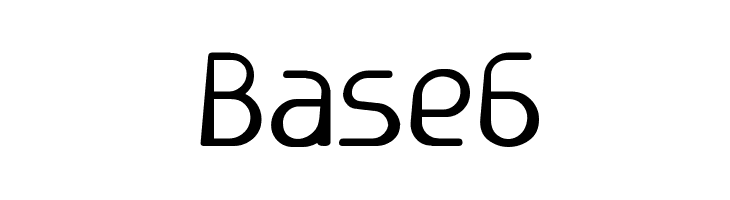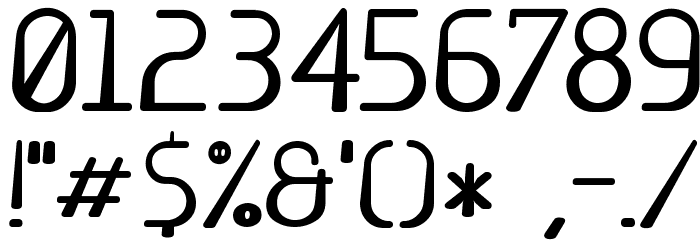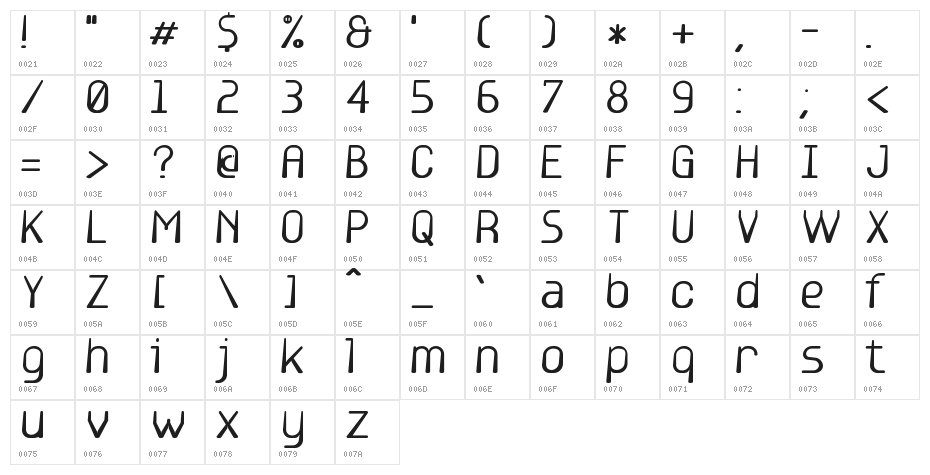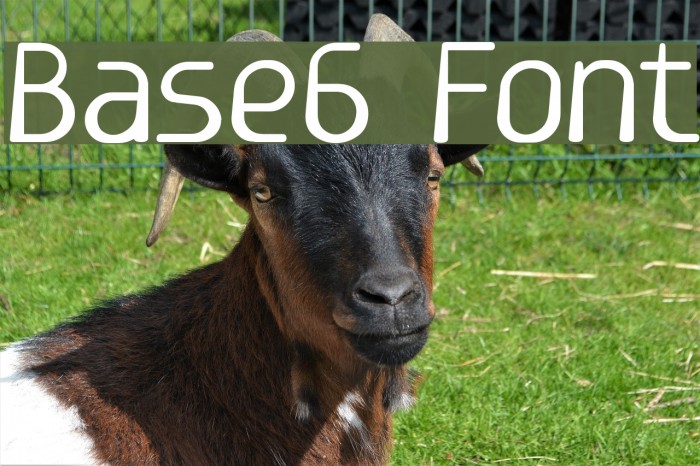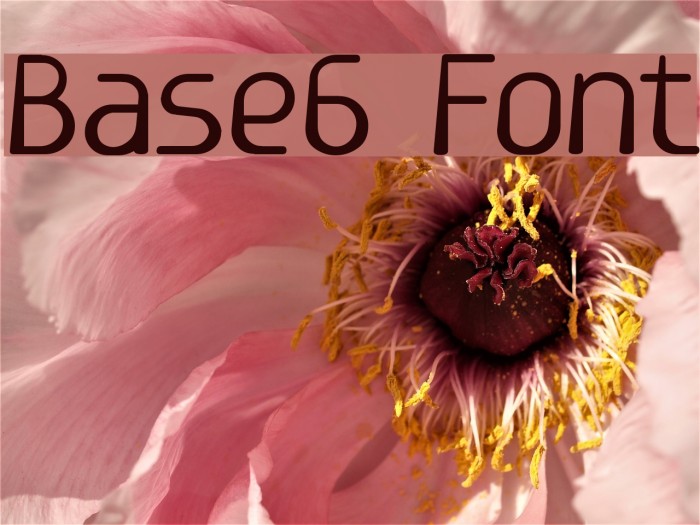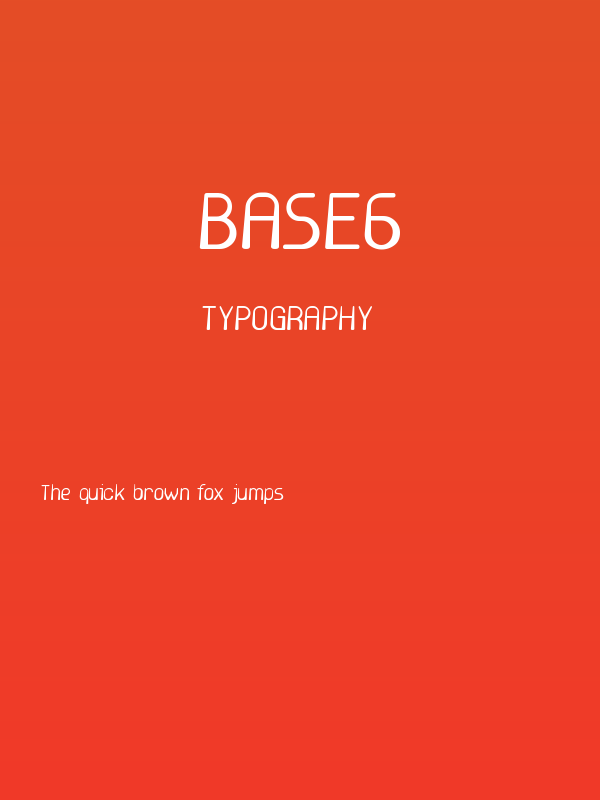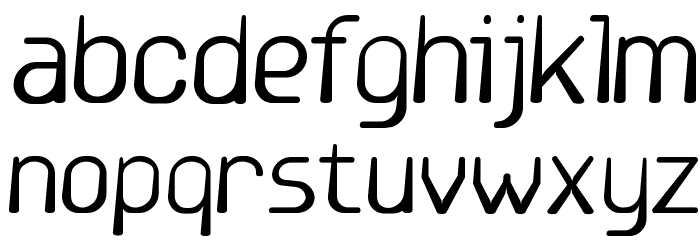
Base6 Font
Base6 Description
This font features a modern and clean design with a monospaced style, where each character occupies the same amount of horizontal space. The letters have a rounded, geometric appearance, giving it a contemporary and approachable feel. The uppercase and lowercase letters are well-balanced, with consistent stroke widths that contribute to its uniformity. The numerals are clear and distinct, making them easily readable. Special characters are included, maintaining the same geometric and rounded style, ensuring consistency across all glyphs. This font is suitable for digital displays and coding environments due to its clarity and uniform spacing.
| Use Case | Digital displays, Coding, Technical documentation |
| Proposed Projects | Ideal for coding, digital displays, technical documentation, and modern branding projects. |